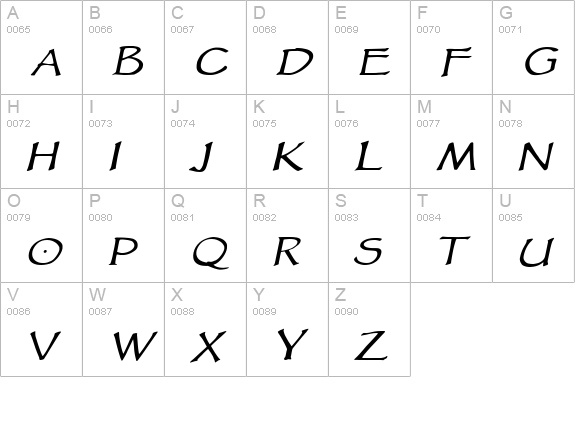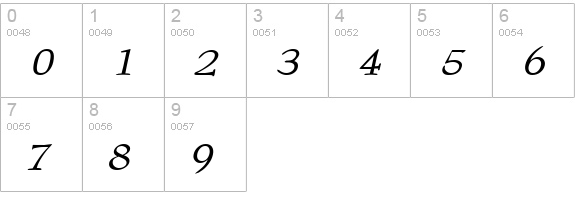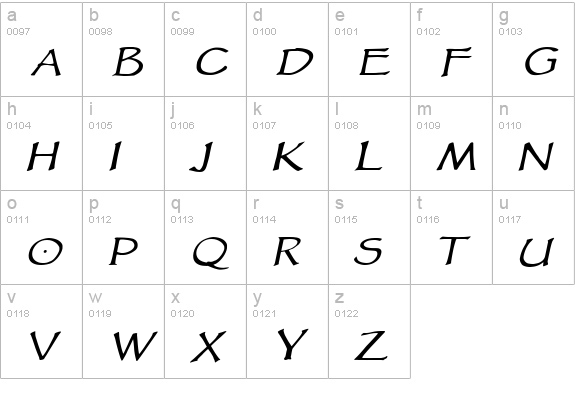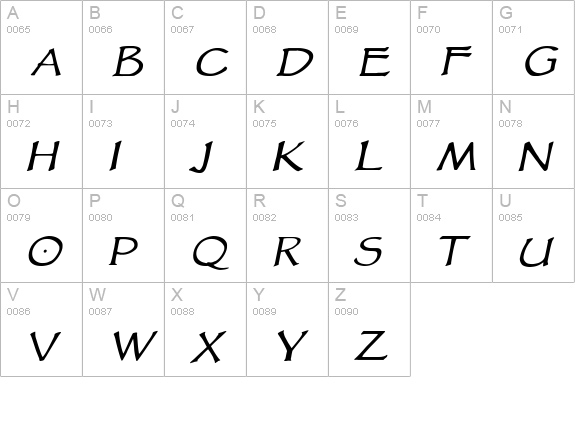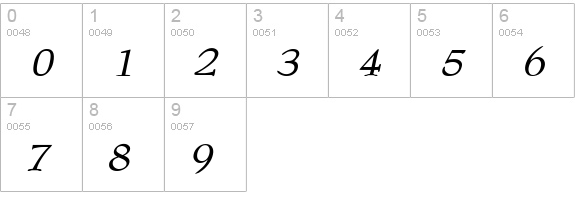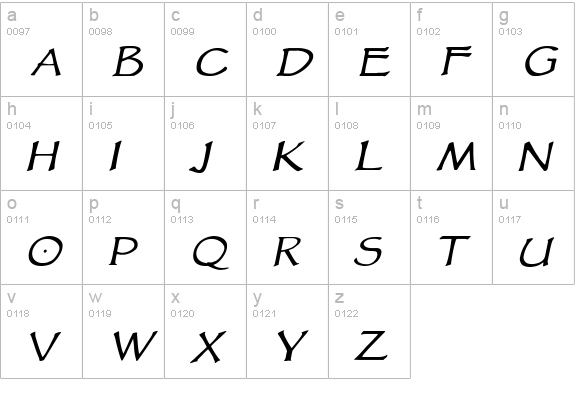
VTCGoblinHandItalic Font Details
Introducing VTCGoblinHandItalic font, a whimsical and playful typeface that will add a touch of magic to your designs. This unique font features quirky and irregular letterforms, inspired by the mischievous nature of goblins. With its slanted and italicized style, VTCGoblinHandItalic exudes a sense of movement and energy, perfect for creating eye-catching headlines, branding materials, posters, and more. But what sets VTCGoblinHandItalic apart is not just its remarkable design, but also its accessibility. This incredible font is available for free download at FontsMarket.com. Yes, you heard it right – you can get your hands on this fantastic typeface without spending a dime. Whether you're a professional designer or a hobbyist looking to add some character to your projects, VTCGoblinHandItalic is the ideal choice. With its wide range of characters, including uppercase and lowercase letters, numbers, punctuation marks, and special glyphs, VTCGoblinHandItalic offers endless possibilities for your creative endeavors. It seamlessly blends in with various design styles, from children's illustrations to fantasy-themed layouts, making it a versatile tool for any project. So why wait? Don't miss out on the opportunity to enhance your designs with the enchanting VTCGoblinHandItalic font. Download it for free today at FontsMarket.com and let your imagination run wild. Bring a touch of whimsy and mischief to your next design project with this one-of-a-kind typeface.